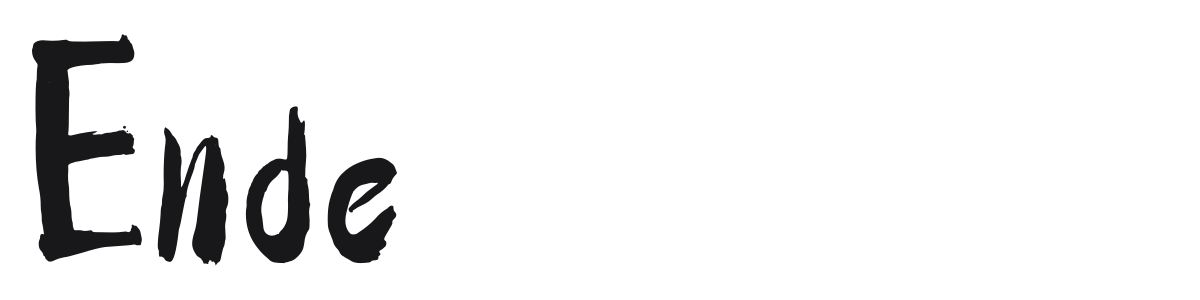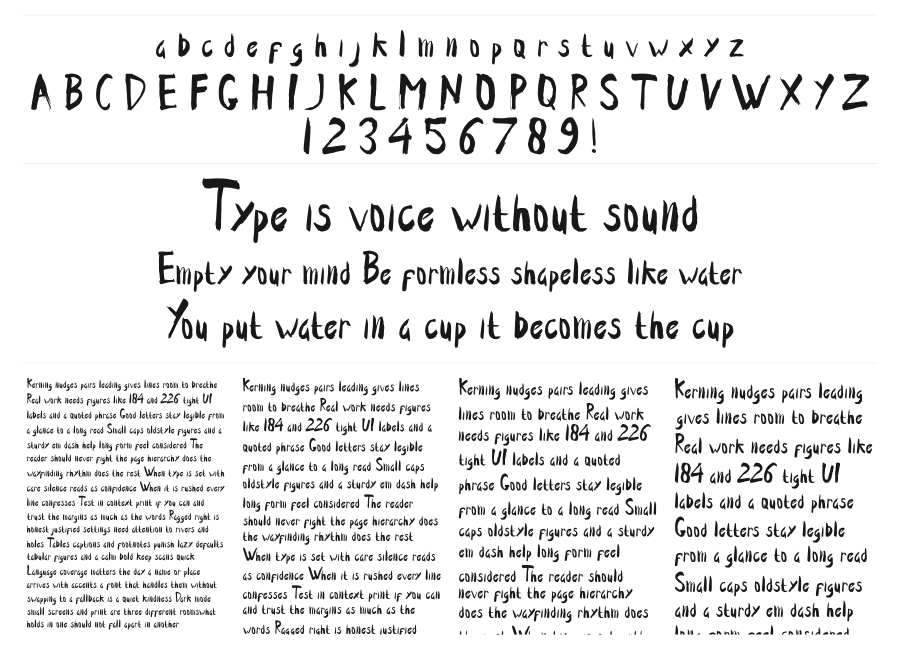
Ende
Ende is a rough hand-painted brush font with ragged, ink-textured strokes and deliberately irregular proportions. Each character feels pulled from a real brush stroke, with fraying edges and natural variation in weight that give it genuine spontaneity. It carries an underground, independent energy suited to music, street culture, and bold editorial use.